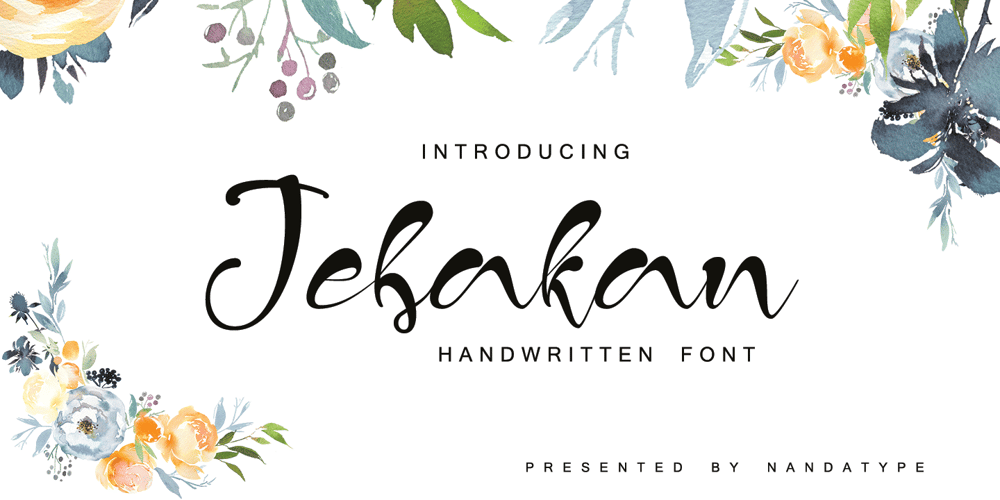
Jebakan Font Family was designed by Nanda Type and published by Nandatype Studio. Jebakan contains 1 styles and family package options. Jebakan is a beautiful and charming display font with a bold vibe. Jebakan suitable for standout designs and make any design idea into a true standout.